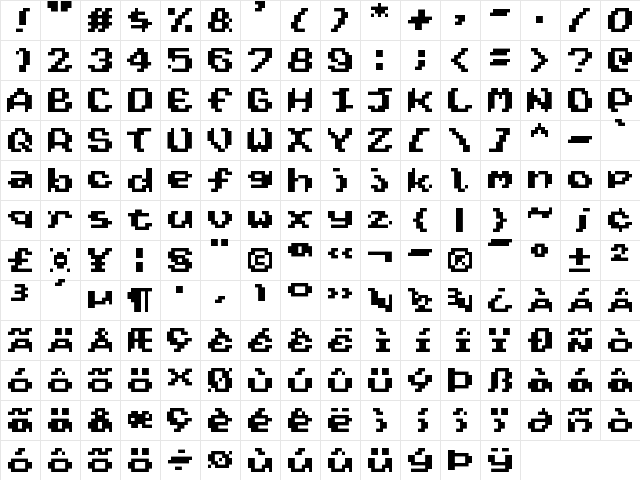
Wayfarer's Toy Box Regular
Design Context for Wayfarer's Toy Box Typeface
Wayfarer's Toy Box is a composed and adaptable typeface that performs quietly and consistently across a wide range of design contexts.